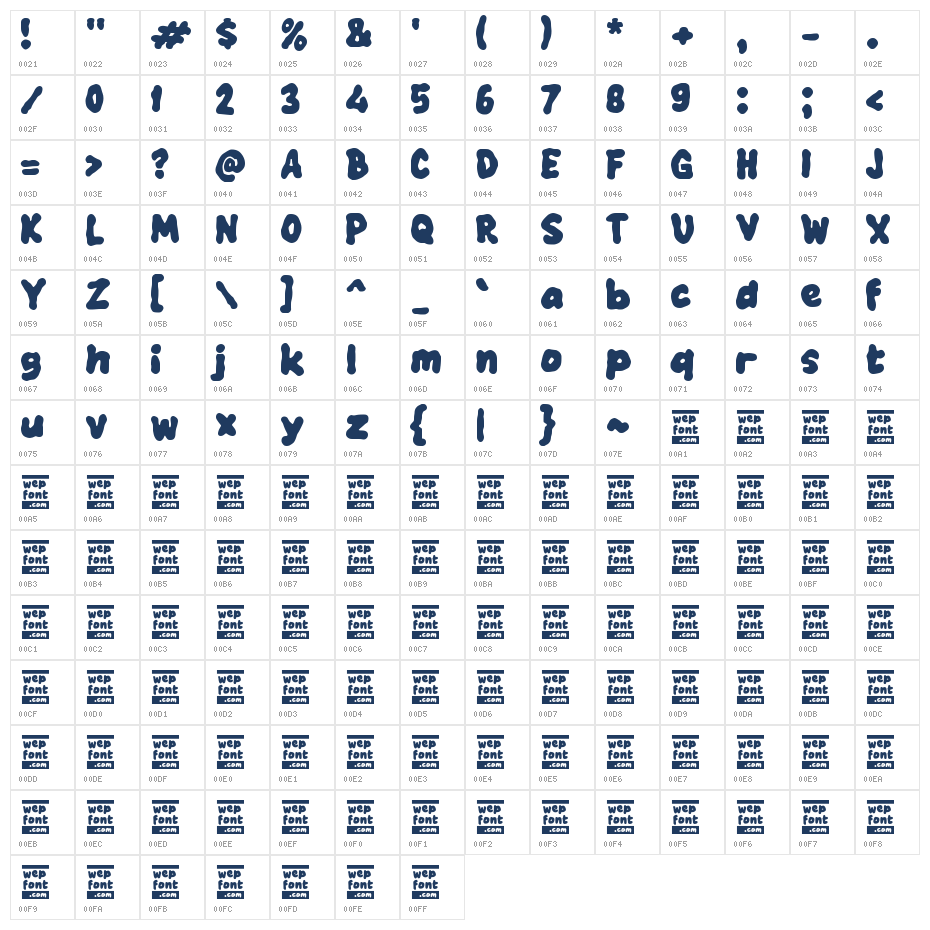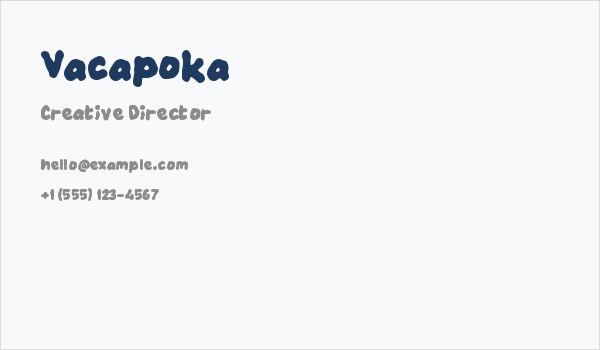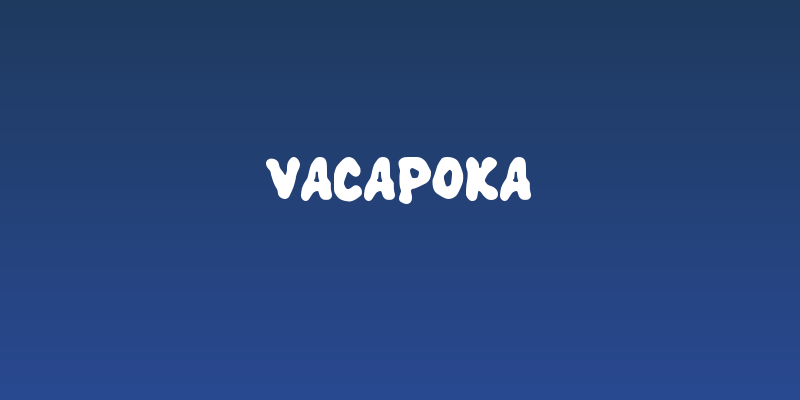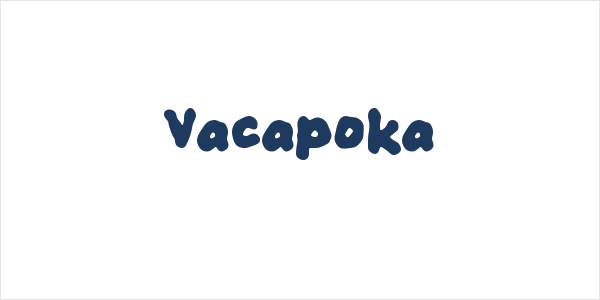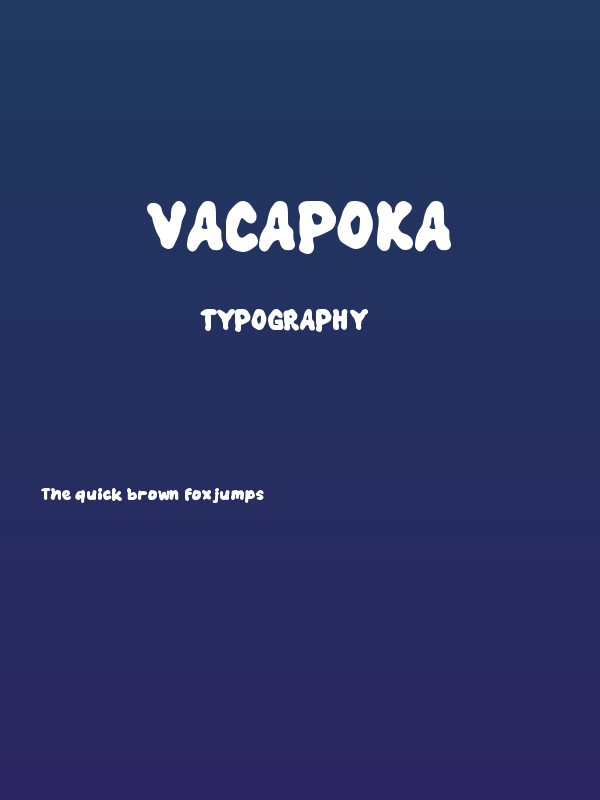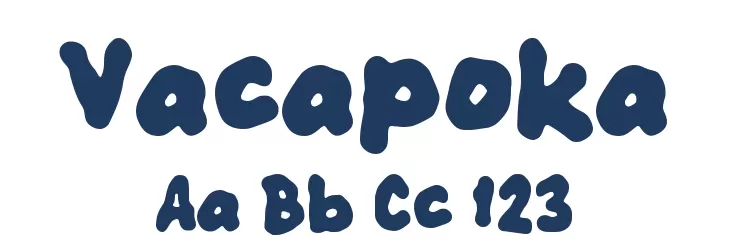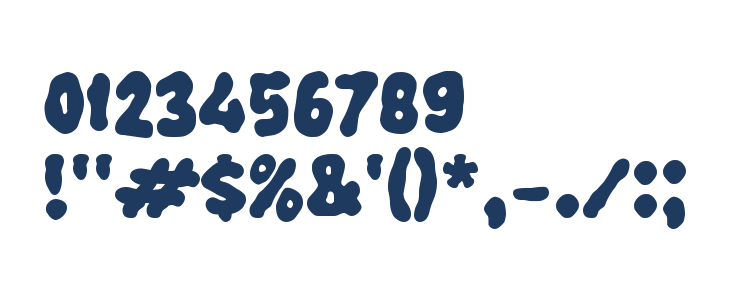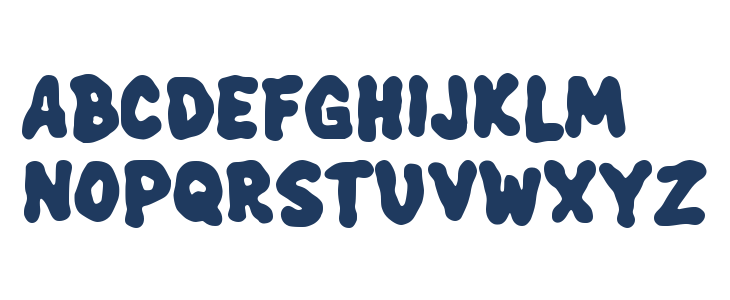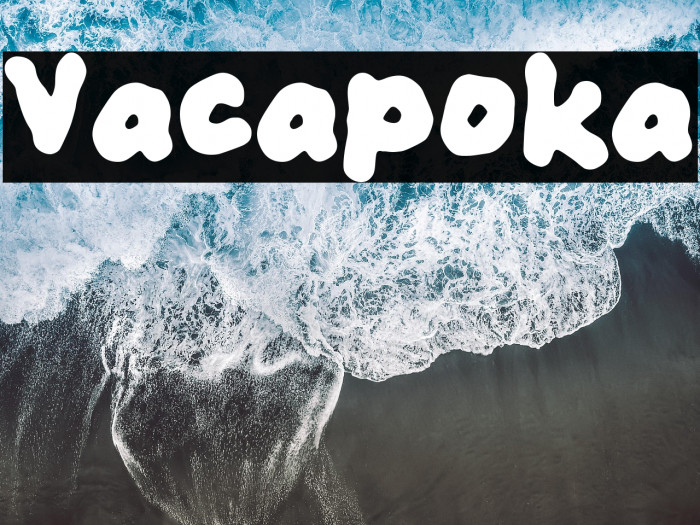
Vacapoka Font
Vacapoka Description
A bold, playful, and rounded display font with a chunky, informal style.
| Overall Style | Playful, Casual, Rounded |
| Use Case | Headlines, Logos, Posters, Packaging |